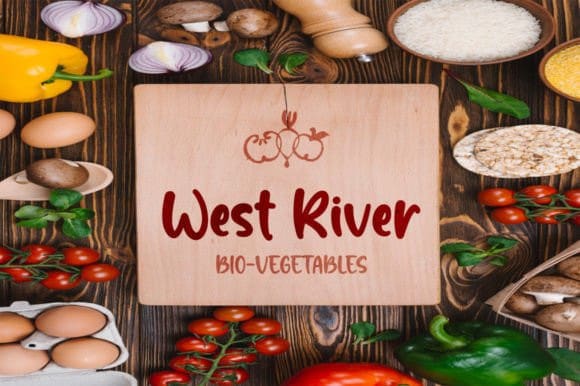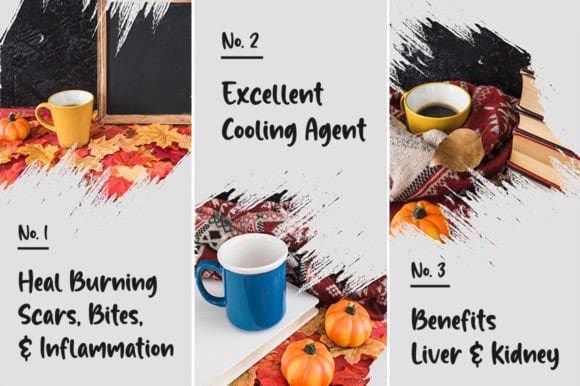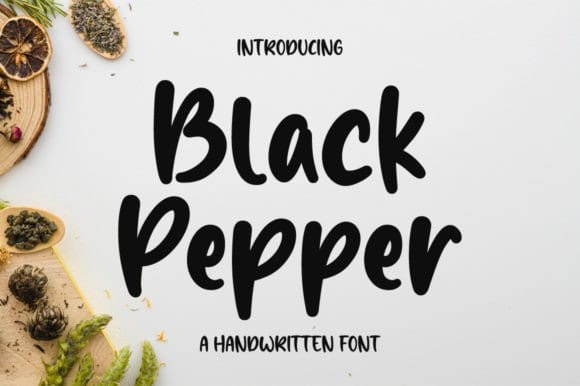
Black Pepper Font
Black Pepper Font is a delicate and simple-lettered handwritten font, perfect for all the chalkboard quotes and teaching materials you wish to create! Its authentic look will add a personal and realistic feel to your designs.